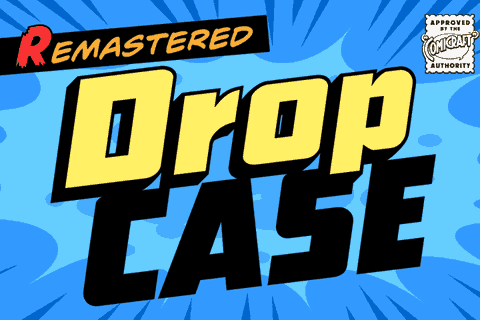
Drop Case
As seen in ELEPHANTMEN and THE RED STAR, his solid headline font is supplied to you with exterior protective armor casing. Rapid Deployment of DropCase from high altitudes is acceptable only in accordance with the directives of the Red Fleet.
Open Regular
Solid Regular
Open Italic
Solid Italic
Four weights with upper & lowercase alphabets